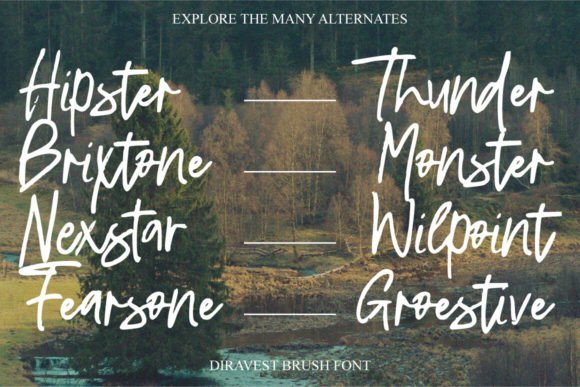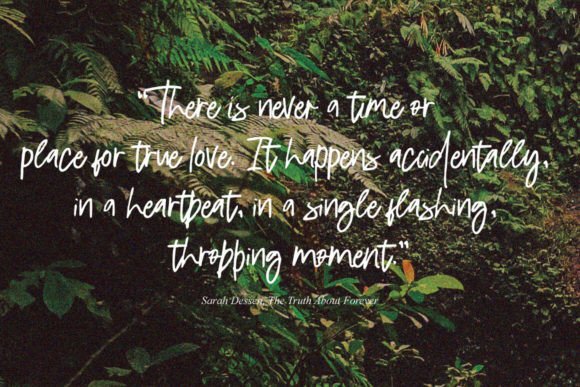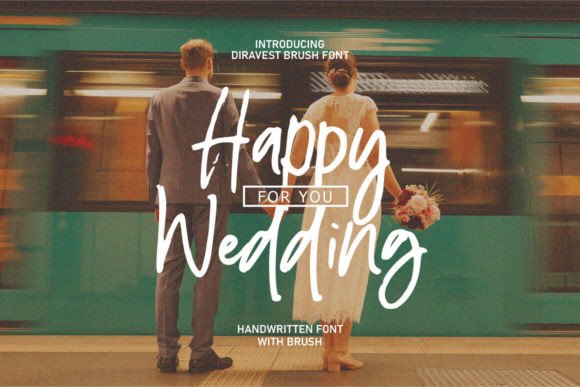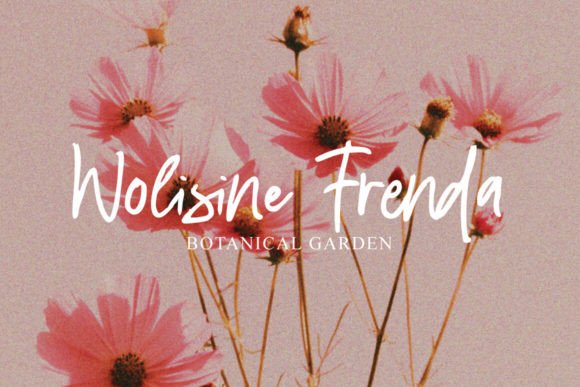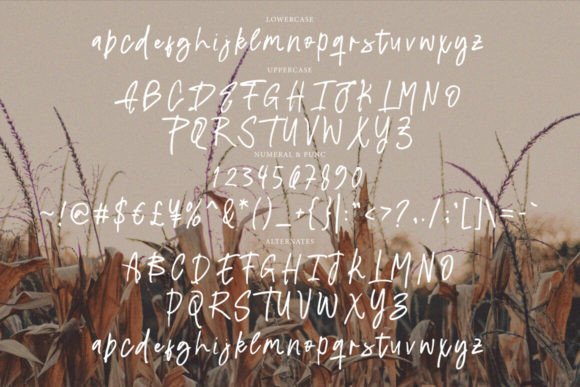
Introducing Diravest Brush Font: Elevate Your Designs with a Handmade Signature Style
Are you looking for a font that adds a personal touch to your designs? Look no further than the Diravest Brush Font. This beautiful font features a handmade signature style, decorative characters, and a dancing baseline that will make your designs stand out. In this article, we’ll explore the features of Diravest Brush and how it can elevate your designs.
A Font with a Personal Touch
Diravest Brush Font is a unique font that mimics the look of handwritten brush scripts. Its handmade signature style gives it a personal and organic feel that’s perfect for designs that require a touch of elegance and sophistication. Whether you’re designing invitations, greeting cards, branding materials, business cards, quotes, posters, or more, Diravest Brush is the perfect choice.
Features of Diravest Brush Font
Diravest Brush Font comes with a range of features that make it a versatile and flexible font. Here are some of its key features:
- 200+ Glyphs: Diravest Brush Font comes with over 200 glyphs, including alternative characters, swashes, and ligatures. This means you have a wide range of options to choose from when designing.
- Open Type Features: The font features Open Type features such as Swash, Stylistic Sets, Stylistic Alternates, and Ligature. These features can be accessed using Open Type savvy programs like Adobe Illustrator, Adobe InDesign, Adobe Photoshop, Corel Draw X version, and Microsoft Word.
- PUA Unicode: Diravest Brush Font has been given PUA unicode, which means that all the alternate characters can be easily accessed in full by a craftsman or designer.
What Can You Create with Diravest Brush Font?
Diravest Brush Font is a versatile font that can be used for a wide range of design projects. Here are some ideas to get you started:
- Invitations: Use Diravest Brush Font to create beautiful invitations for weddings, parties, and other special occasions.
- Greeting Cards: Create stunning greeting cards for birthdays, holidays, and other celebrations.
- Branding Materials: Use Diravest Brush Font to create unique and memorable branding materials, such as logos, business cards, and letterheads.
- Posters: Create eye-catching posters for events, promotions, and campaigns.
- Quotes: Use Diravest Brush Font to create inspiring and motivational quotes for social media, blogs, and websites.
Why Choose Diravest Brush Font?
So why choose Diravest Brush Font over other fonts? Here are some reasons:
- Unique Style: Diravest Brush Font has a unique handmade signature style that’s unlike any other font.
- Flexibility: The font comes with a wide range of glyphs and Open Type features, making it flexible and versatile.
- Ease of Use: Diravest Brush Font has been designed to be easy to use, even for designers who are new to Open Type fonts.
| Font Name | Diravest Brush Font |
| Author | Tebaltipis.std |
In conclusion, Diravest Brush Font is a beautiful and versatile font that’s perfect for designers and crafters who want to add a personal touch to their designs. With its handmade signature style, decorative characters, and dancing baseline, it’s sure to make your designs stand out. Whether you’re creating invitations, greeting cards, branding materials, or more, Diravest Brush Font is a great choice.